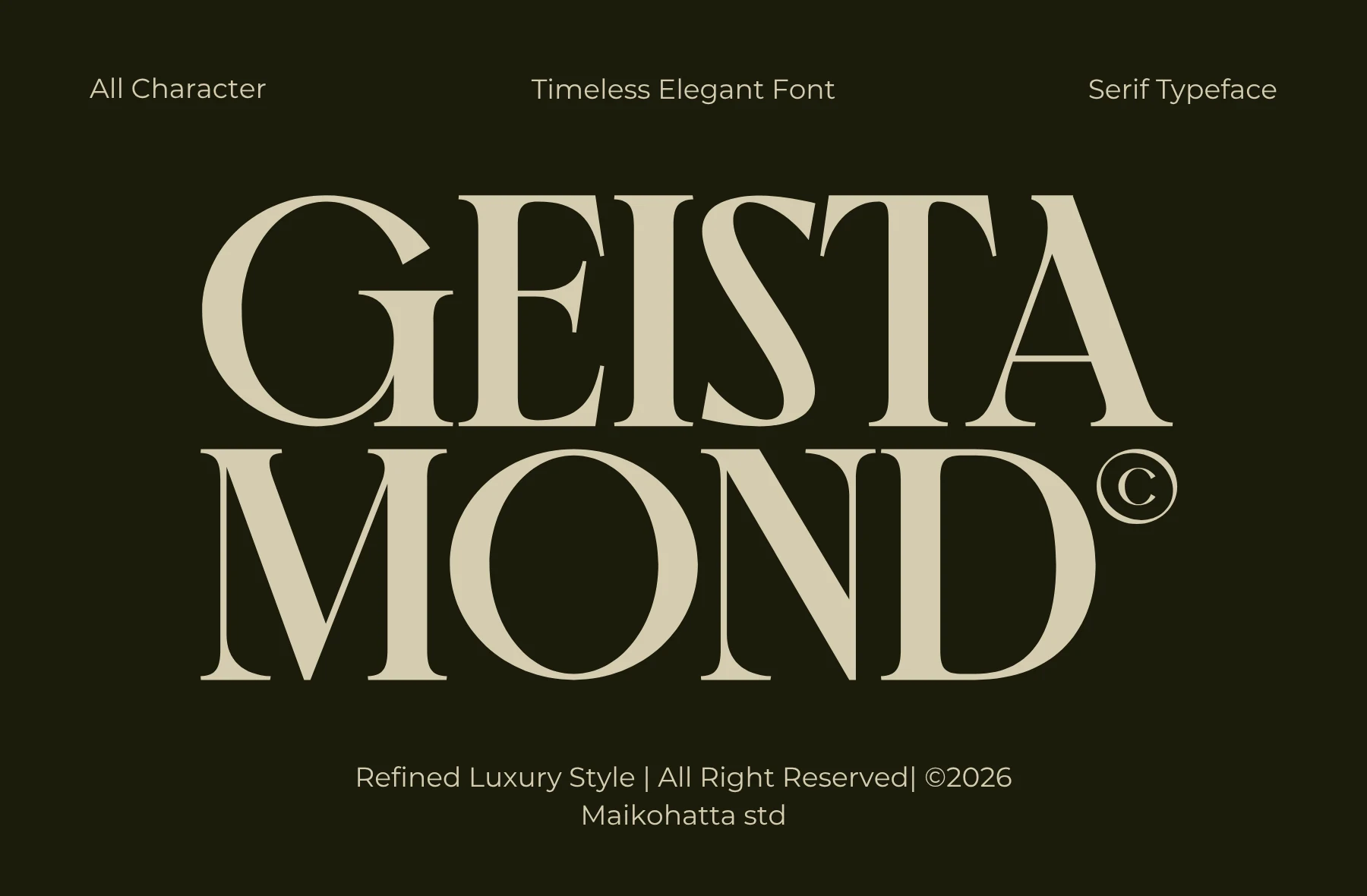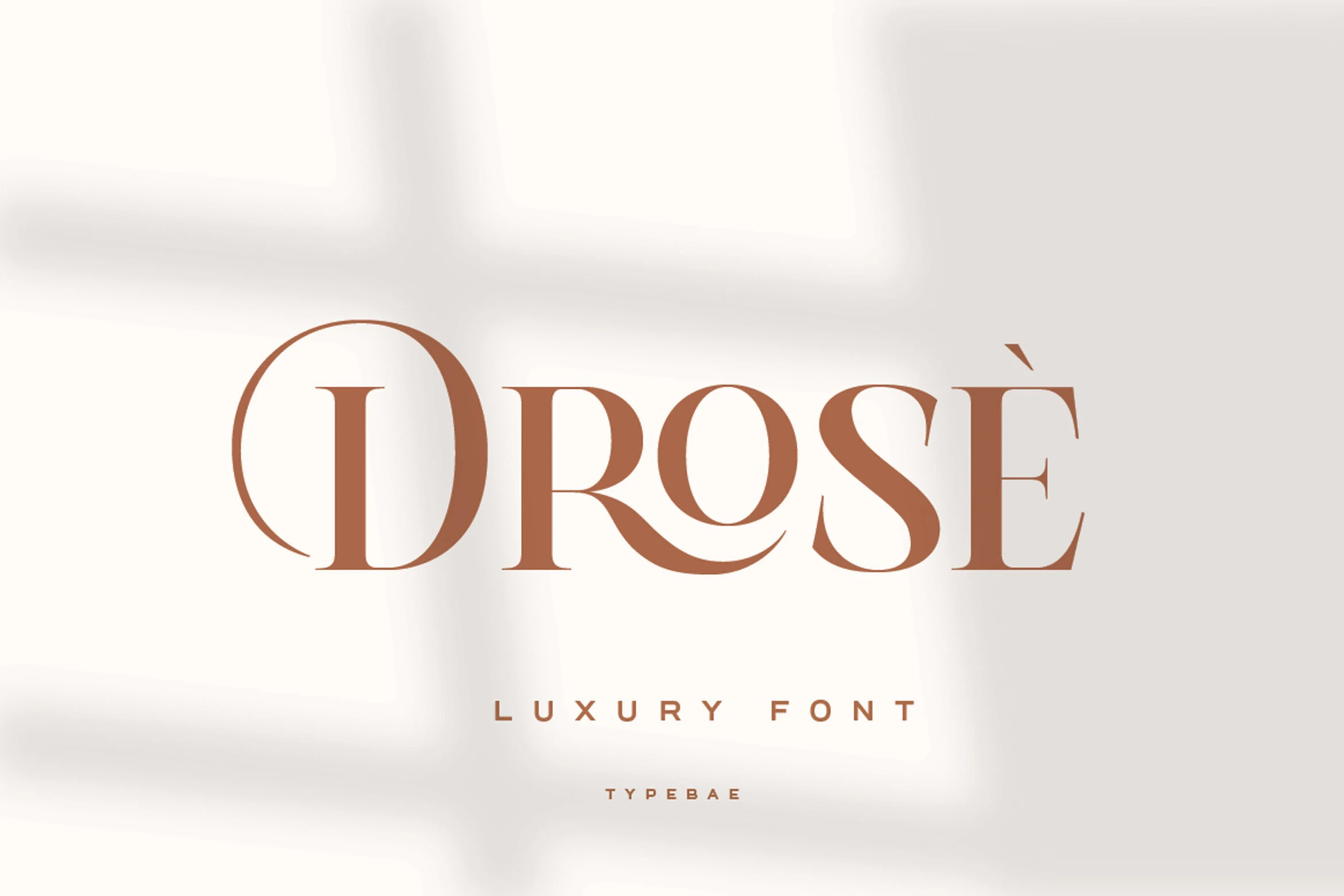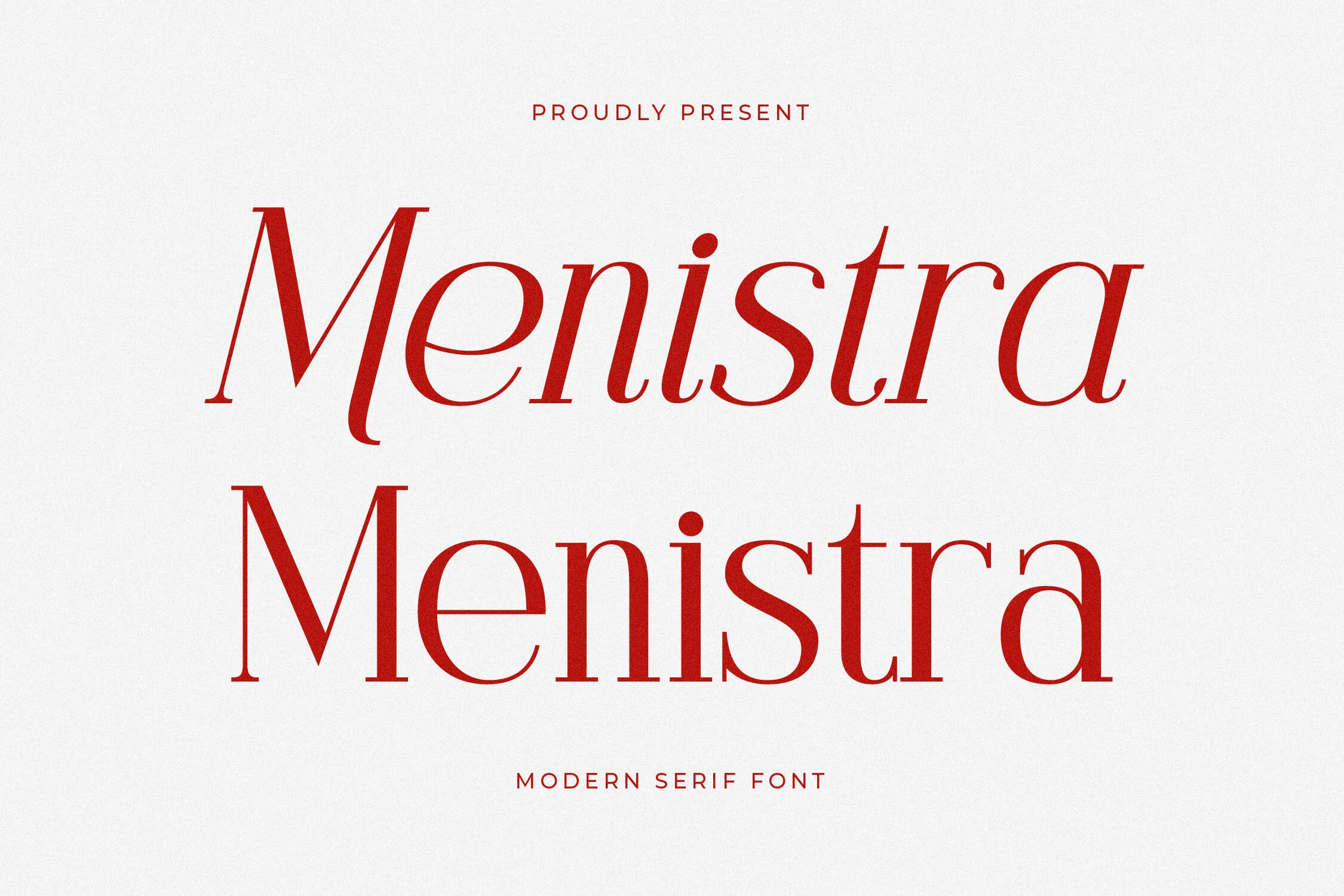
18 Best Luxury Serif Fonts for Stunning Designs in 2026
Luxury Serif Fonts are ideal for designers building refined logos, fashion editorials, beauty packaging, invitations, and premium brand systems. This collection groups high-contrast, elegant, romantic, and editorial serif styles so you can choose the right font faster.
Fashion Editorial Luxury Serif Fonts
These high-contrast serif fonts use tall proportions, sharp details, and polished rhythm for fashion campaigns, magazine covers, beauty branding, and premium editorial layouts.
Velique Font
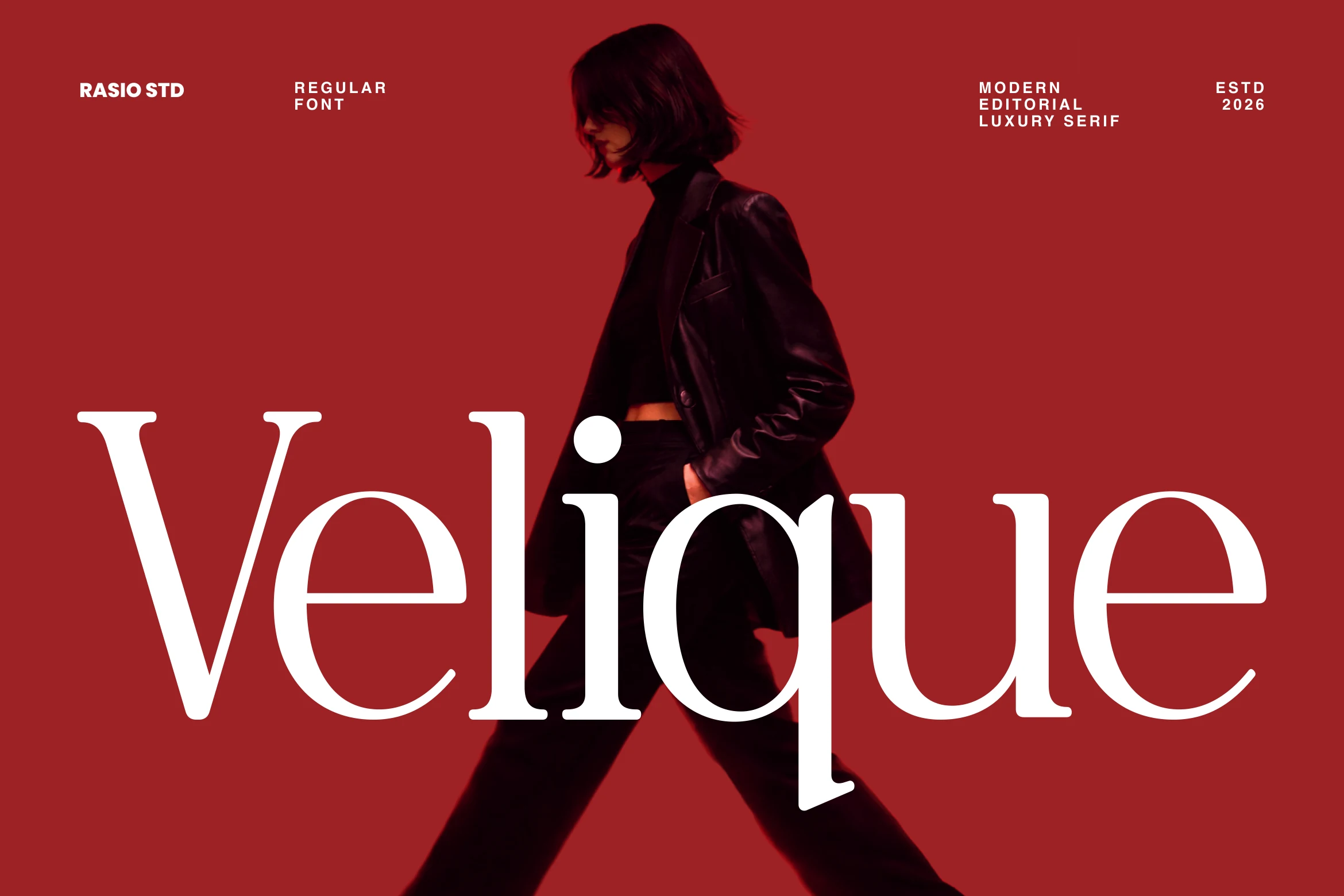
Best For: fashion branding, beauty branding, magazine covers, luxury designs
Velique Font has the crisp poise of a fashion serif, with tall proportions, fine hairlines, and broad rounded bowls that keep the letterforms light rather than dense. In the preview, the large wordmark stays striking over photography because the counters are open and the contrast is controlled, not brittle.
If you’re collecting Luxury Serif Fonts for editorial branding, this one is especially effective on magazine covers, perfume packaging, and image-led layouts. Keep the headline short and oversized, then pair it with compact supporting text so the negative space stays intentional and the elegant q descender has room to stand out.
Atfagis Font
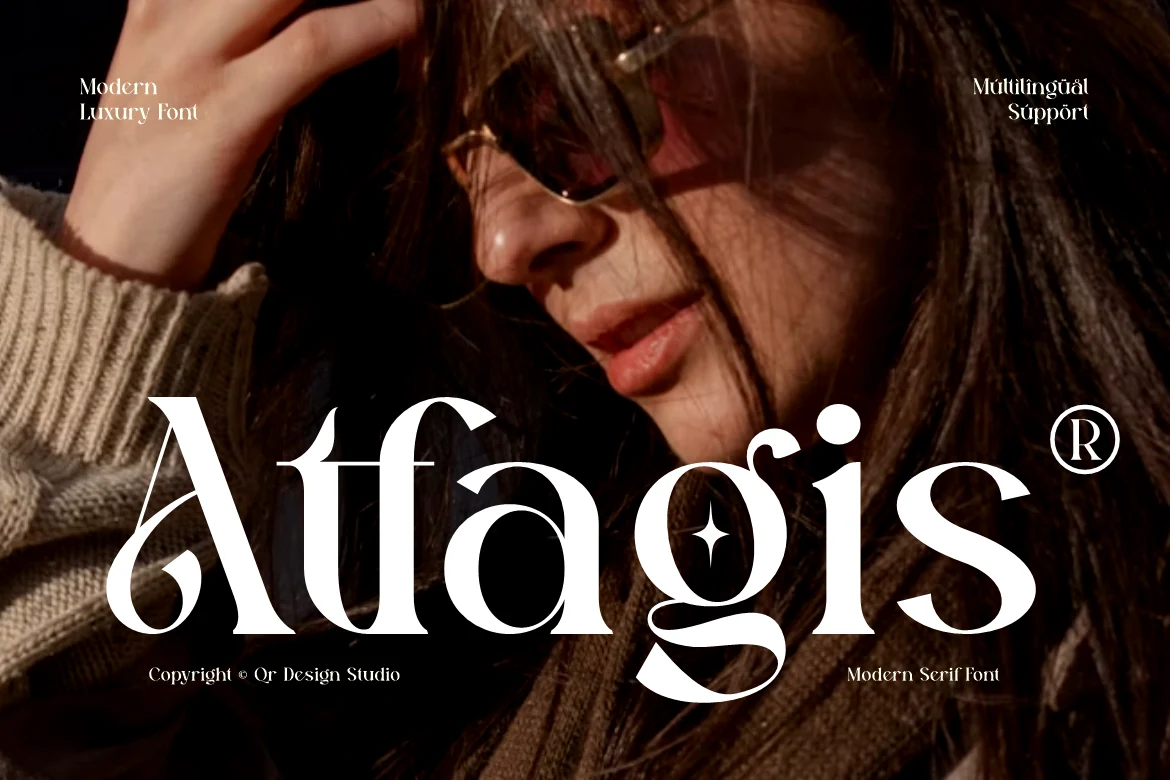
Best For: fashion branding, beauty branding, magazine covers, luxury designs
Atfagis Font leans into drama with stretched proportions, razor-thin hairlines, and sculpted curves that feel part Roman serif, part fashion display. The preview shows how its oversized forms hold attention over photography, while details like the stylized A and ornamental g keep the wordmark looking distinctly editorial.
It works best when you let the nameplate do the heavy lifting in Luxury Serif Fonts projects such as covers, jewelry packaging, or boutique branding. The multilingual support helps keep international campaigns consistent, and a short headline with compact supporting text will preserve the contrast and keep the decorative terminals from feeling crowded.
Amodhev Font
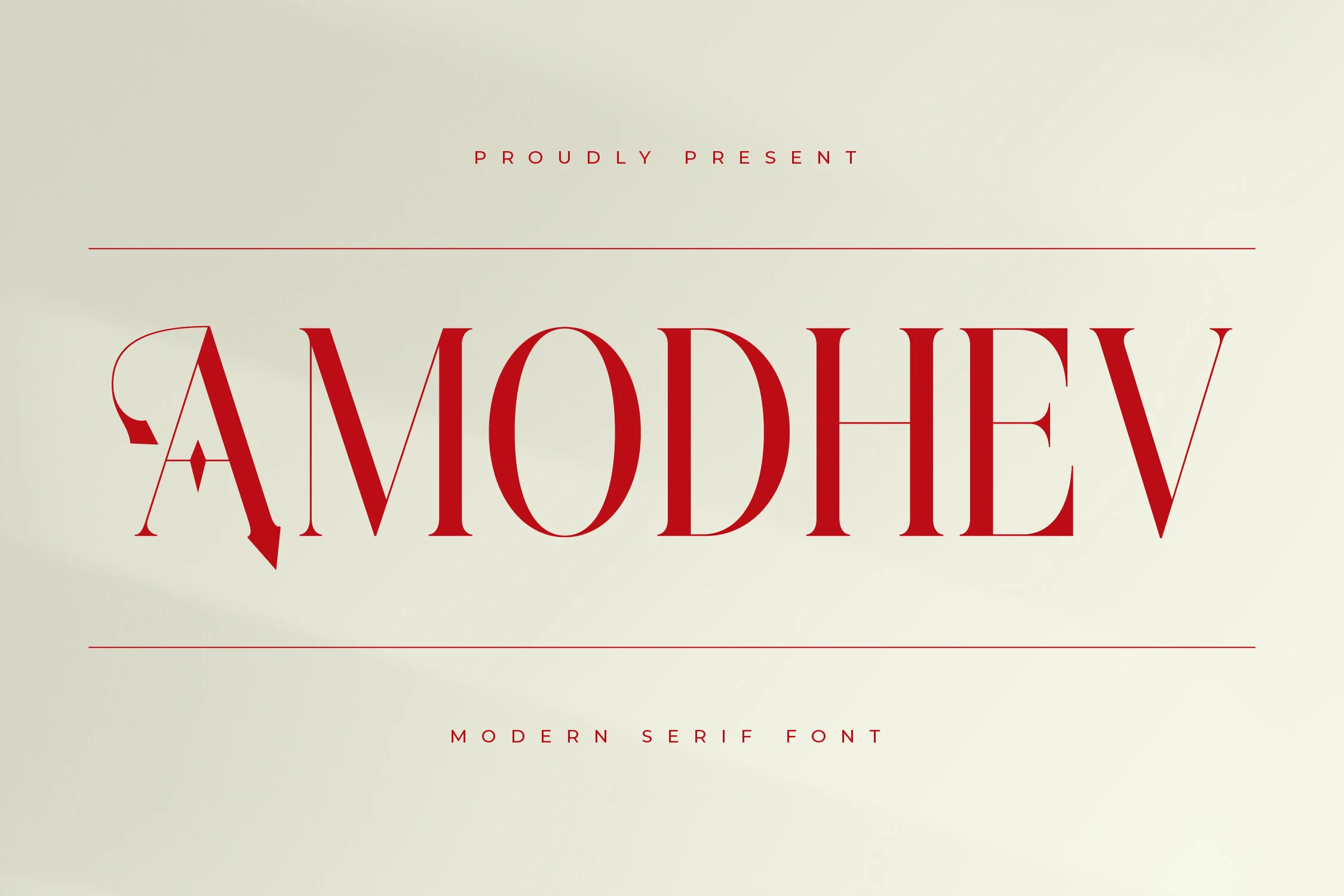
Best For: branding, book covers, editorial designs, luxury designs
Amodhev Font has a sharp editorial character, built from tall stems, crisp hairlines, and strong contrast that gives each capital a polished, high-fashion edge. The stylized A and the long crossbar in the H add a custom feel, while the generous proportions keep the wordmark elegant instead of rigid.
If you are browsing Luxury Serif Fonts for statement typography, Amodhev is most effective in short titles where its details can breathe. Use it at a generous size with restrained supporting text or wider spacing, so the delicate serifs and graphic cuts stay clear on covers, packaging, and identity work.
Cruell Font
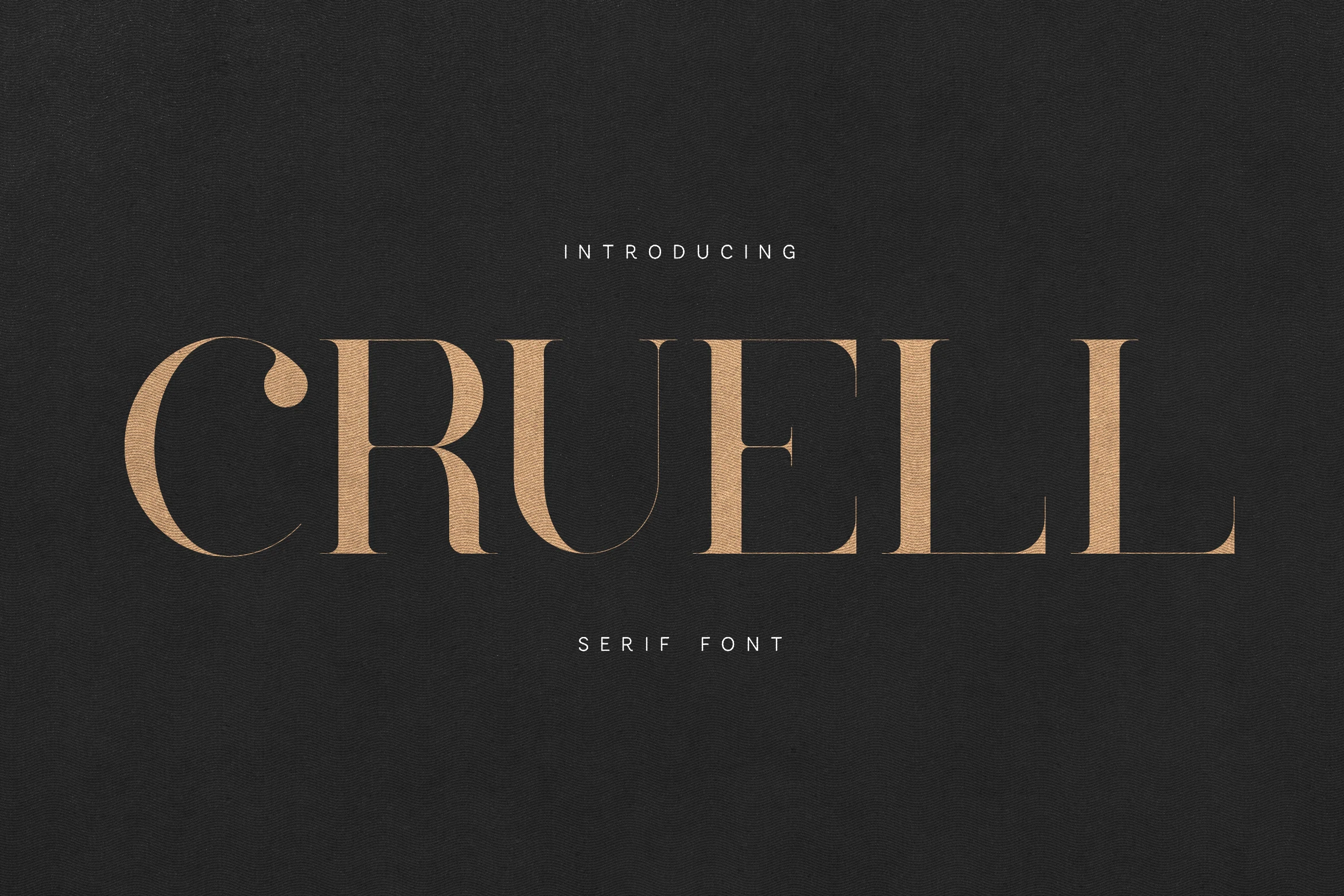
Best For: branding, editorial designs, magazine covers, luxury designs
Cruell Font pairs tall verticals with sharp contrast and clean wedge-like serifs, giving the capitals a poised editorial cadence. In the preview, the wide spacing and elongated stems keep the wordmark calm and expensive rather than ornate, so it reads with clarity even at a dramatic scale.
For Luxury Serif Fonts, Cruell is strongest in magazine titles, boutique branding, and cosmetic packaging where a short line can carry the composition. Use it large with restrained tracking and a quiet sans serif secondary line; that contrast lets the fine hairlines stay crisp and the structure do the work.
Celmoer Font
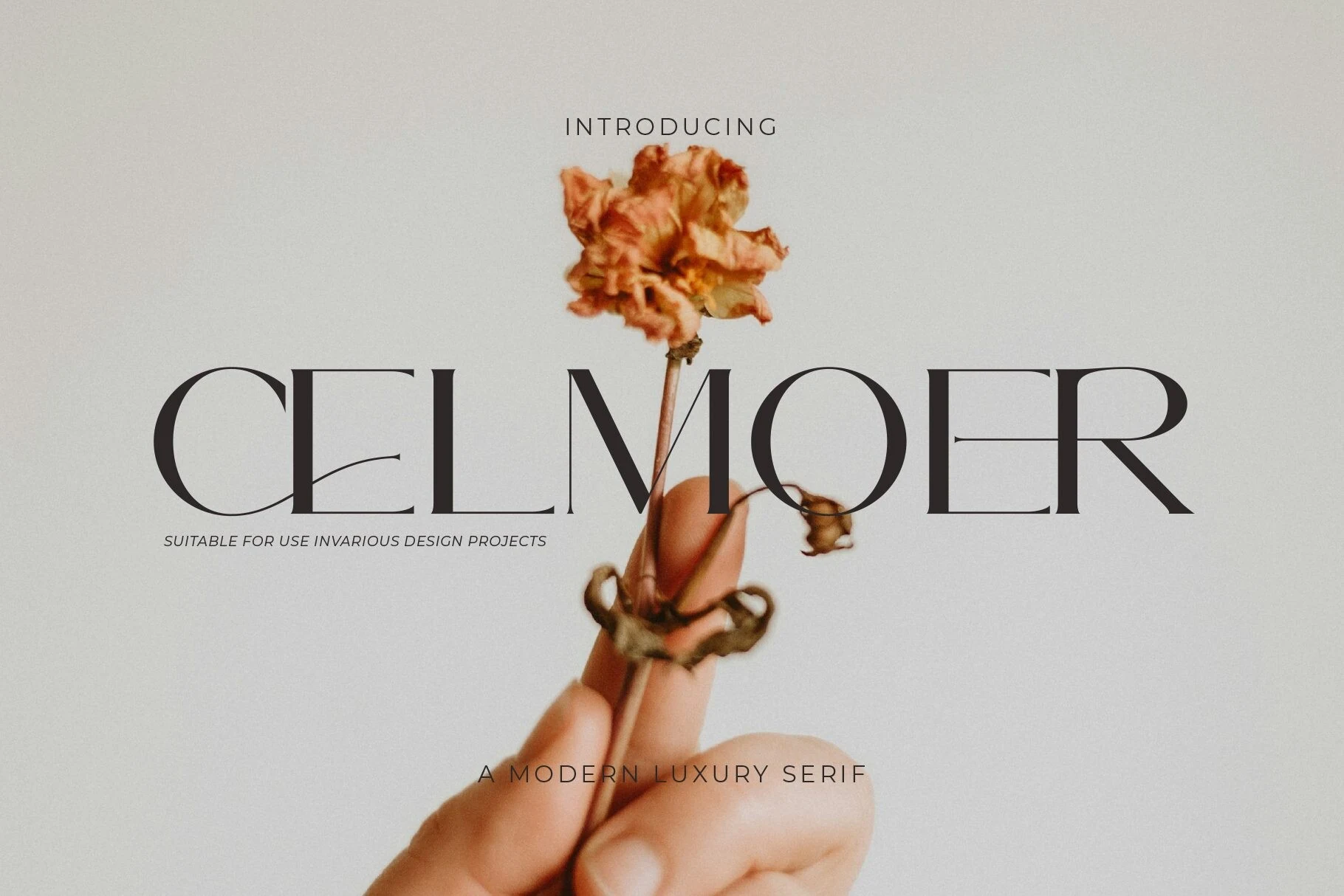
Best For: editorial designs, fashion branding, beauty branding, luxury designs
Celmoer Font has a sharp editorial silhouette, built from tall all-caps forms, long geometric stems, and extremely fine horizontal strokes. The contrast feels sleek rather than fragile, and the overlapping ligature details give the wordmark a deliberate couture finish instead of a standard serif rhythm.
For Luxury Serif Fonts, this one works best when the headline is allowed to dominate the layout. Use it in short titles, mastheads, or packaging fronts with plenty of negative space, because the thin crossbars and linked letters stay clearer and more striking when they are not compressed by dense copy.
Alvora Font
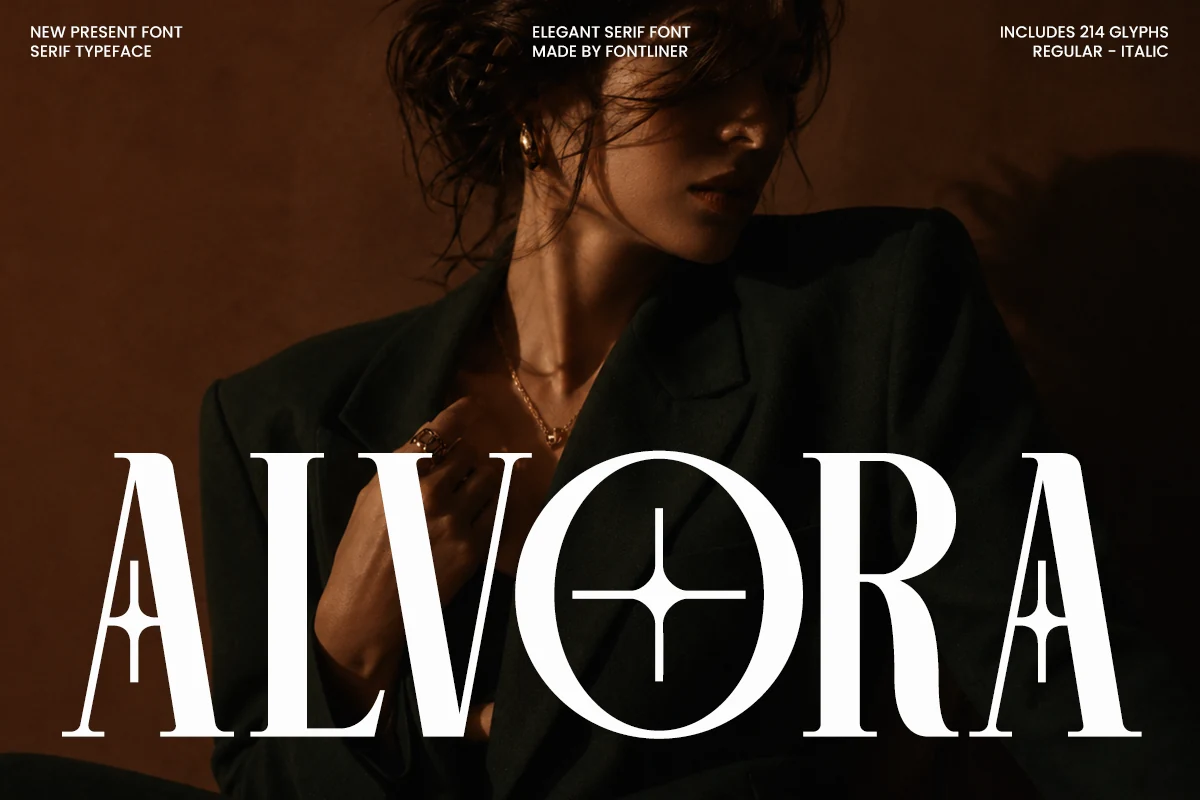
Best For: fashion branding, luxury designs, editorial designs, high-end designs
Alvora Font leans into a fashion-editorial serif look: tall capitals, sharp bracketed serifs, high contrast, and narrow counters that make the word shape feel polished rather than delicate. The distinctive A construction and circular O detail give it a signature display edge, useful when Luxury Serif Fonts need a recognizable headline instead of a neutral title.
Use it where hierarchy can stay compact and intentional—brand marks, magazine covers, perfume-style packaging, or campaign titles. The regular and italic styles help separate primary names from supporting text, while the 214 glyph set gives enough range for refined professional layouts without leaning on oversized ornament.
Conclusion
For the cleanest high-end look, choose fashion editorial serifs for covers and campaigns, branding serifs for logos and packaging, and romantic decorative serifs when you need softer, more ornamental typography.